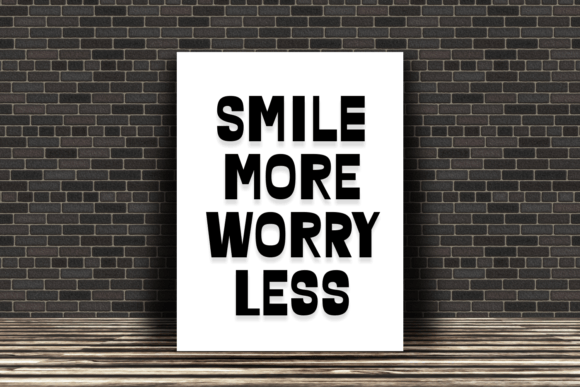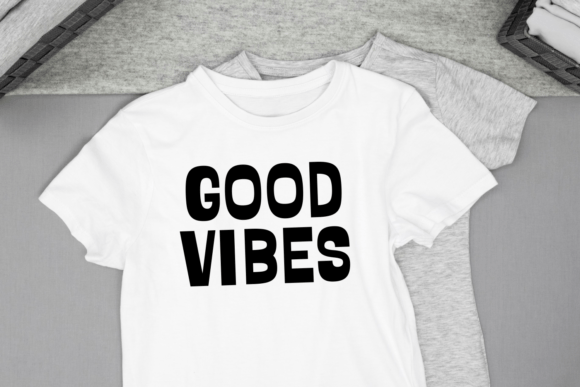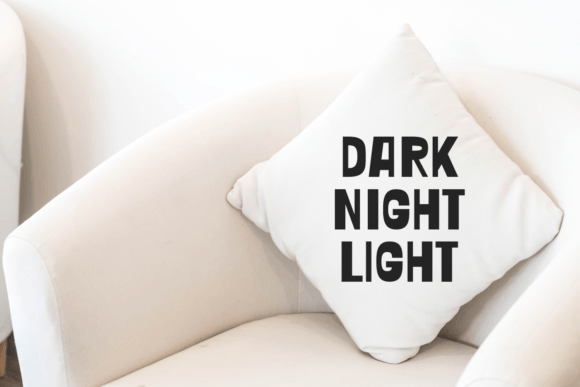
Keep Quiet Font
Immerse yourself in the captivating allure of Keep Quiet Display Font. This robust, bold fonts add an endearing charm with their cute accents, perfect for apparel designs and authentic renderings. Ideal for book covers and branding applications, they seamlessly blend style and readability. As neat and crisp as a fresh sheet of paper, these clean fonts embody meticulous craftmanship. Whether you’re creating a magazine cover, stylish logotype, or a heartfelt greeting card, these fonts will make your message shine.